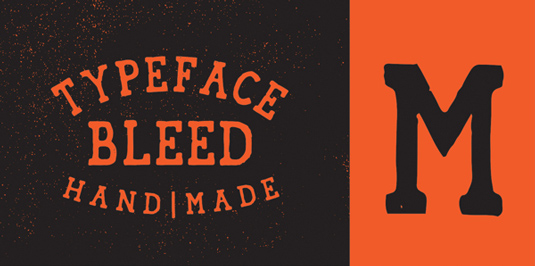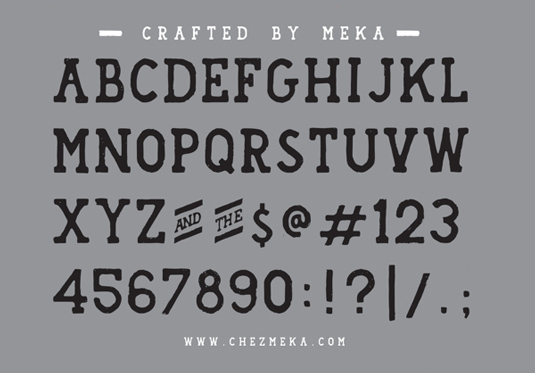
Font of the day: Bleed
Every day we showcase the best fonts on the web. Today it's Bleed by Meka.
Bleed by Meka
A basic serif typeface, Bleed was handcrafted by art director and illustrator Thibaut 'Meka' Désiront. Available in both otf and ttf formats, Bleed is on sale now, priced at just $10.